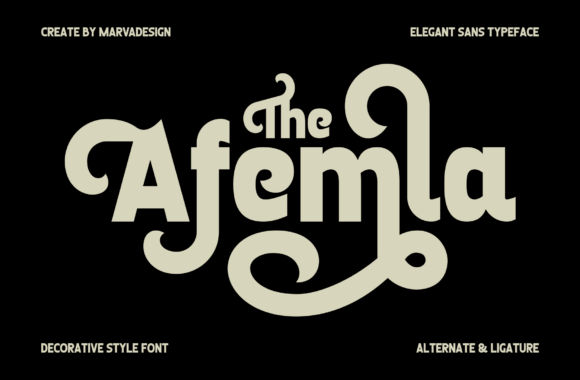
Introducing Afemla Font: The Epitome of Modern Elegance and Artistic Flair
In the realm of typography, few fonts manage to strike a balance between modern sophistication and timeless elegance. Afemla Font is one such exceptional typeface that has been turning heads with its distinctive aesthetic, making it an ideal choice for high-end branding, editorial designs, and luxurious visual identities. In this article, we will delve into the intricacies of Afemla Font, exploring its design elements, features, and applications, as well as provide insights into its versatility and potential uses.
Design Philosophy: A Blend of Modernity and Timelessness
Afemla Font is the brainchild of designers who sought to create a typeface that embodies the essence of modern elegance while retaining a timeless appeal. The font’s design philosophy revolves around the concept of sophistication, with clean lines, precise curves, and a sans-serif structure that exudes confidence and luxury. Each glyph has been meticulously crafted to ensure that Afemla is not only visually stunning but also highly legible, making it suitable for a wide range of applications.
Key Features of Afemla Font
Afemla Font boasts a range of features that set it apart from other typefaces in the sans-serif category. Some of its notable features include:
- Unique Glyph Design: Afemla’s glyphs are designed with a unique flair, making each character instantly recognizable.
- Elegant Ligatures: The font includes elegant ligatures that add a touch of sophistication to any text.
- Multiple Weights: Afemla comes in multiple weights, ranging from light to bold, allowing designers to choose the perfect weight for their project.
- Extensive Character Set: The font features an extensive character set, including support for multiple languages.
Applications of Afemla Font
Given its sophisticated and elegant design, Afemla Font is perfect for a variety of applications, including:
- High-End Branding: Afemla’s luxurious aesthetic makes it an ideal choice for high-end branding projects, such as logos, business cards, and letterheads.
- Editorial Designs: The font’s elegance and legibility make it suitable for editorial designs, including magazines, newspapers, and books.
- Luxurious Visual Identities: Afemla can be used to create stunning visual identities for luxury brands, including packaging, advertising, and website design.
Why Choose Afemla Font?
With so many fonts available in the market, why should you choose Afemla Font for your next project? Here are a few compelling reasons:
- Versatility: Afemla’s multiple weights and extensive character set make it a versatile font that can be used in a wide range of applications.
- Legibility: The font’s clean design and precise curves ensure that it remains highly legible, even at small sizes.
- Elegance: Afemla’s sophisticated aesthetic adds a touch of elegance to any text, making it perfect for high-end branding and editorial designs.
- Timeless Appeal: Unlike trendy fonts that quickly go out of style, Afemla’s timeless design ensures that it will remain relevant for years to come.
Tips for Using Afemla Font Effectively
To get the most out of Afemla Font, here are a few tips to keep in mind:
- Pair with Complementary Fonts: Afemla pairs well with complementary fonts that have a similar aesthetic. Experiment with different font combinations to find the perfect match.
- Use Multiple Weights: Take advantage of Afemla’s multiple weights to create visual hierarchy and add depth to your text.
- Pay Attention to Kerning: As with any font, pay attention to kerning to ensure that your text looks polished and professional.
In conclusion, Afemla Font is a sophisticated and elegant typeface that combines modern elegance with artistic flair. Its distinctive aesthetic, versatility, and timeless appeal make it an ideal choice for high-end branding, editorial designs, and luxurious visual identities. With its clean design, precise curves, and extensive character set, Afemla is sure to elevate any text to new heights. Whether you’re a designer looking for a luxurious font or a brand seeking to create a sophisticated visual identity, Afemla Font is an excellent choice.
- What is Afemla Font? Afemla Font is a sophisticated and elegant sans-serif typeface designed for high-end branding, editorial designs, and luxurious visual identities.
- What are the key features of Afemla Font? Afemla Font features a unique glyph design, elegant ligatures, multiple weights, and an extensive character set.
- Is Afemla Font suitable for body text? Yes, Afemla Font is highly legible and suitable for body text, making it perfect for editorial designs and long-form content.